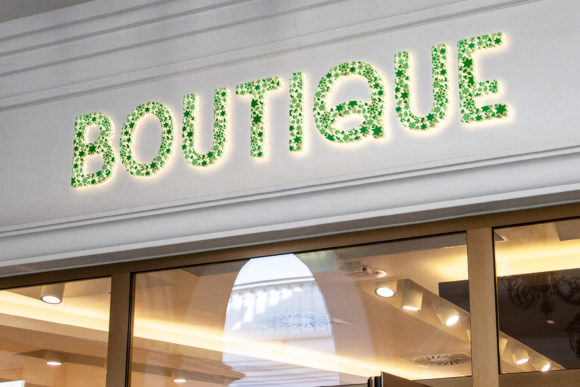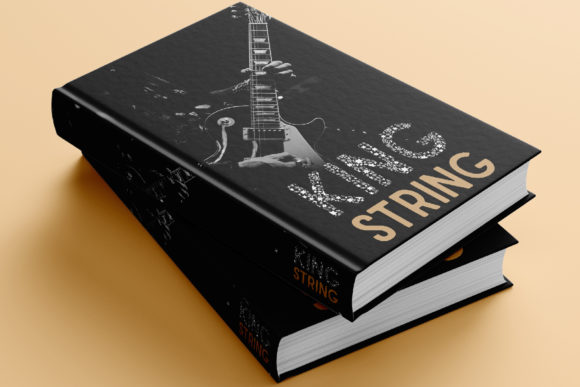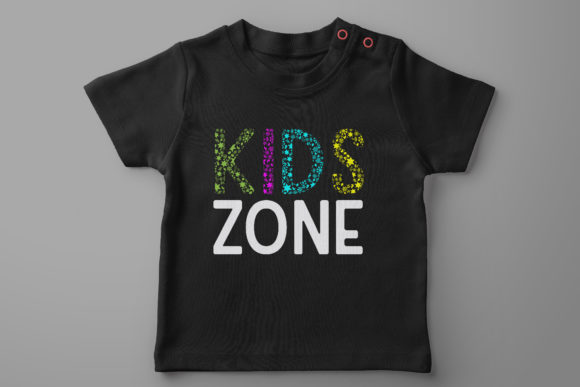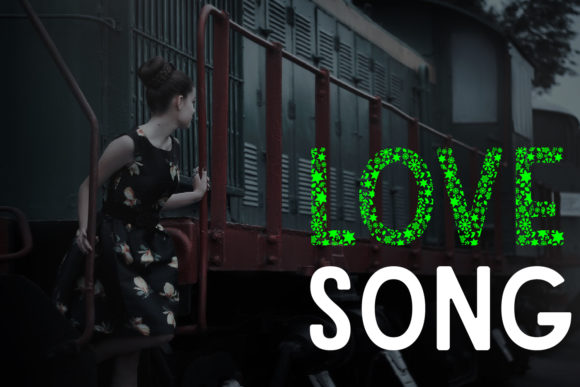
Cemara Font: Elevate Your Designs with a Playful and Cool Display Font
Cemara is a playful and cool display font that will transform any design idea into a true standout! If you’re a designer or crafter looking for a font that can add a touch of personality and whimsy to your projects, Cemara is an excellent choice. In this article, we’ll explore the features and benefits of Cemara font, and how it can elevate your designs to the next level.
What is Cemara Font?
Cemara is a modern display font designed to make a statement. Its playful and cool style is perfect for designs that require a touch of fun and personality. The font features bold lines, rounded edges, and a unique character set that sets it apart from other fonts. Whether you’re working on a logo, poster, or social media graphic, Cemara font is sure to grab attention and leave a lasting impression.
Key Features of Cemara Font
- Playful and Cool Style: Cemara font has a unique and playful style that’s perfect for designs that require a touch of personality.
- Bold Lines and Rounded Edges: The font features bold lines and rounded edges that give it a modern and fresh look.
- Unique Character Set: Cemara font has a unique character set that includes uppercase and lowercase letters, numbers, and special characters.
- Easy to Read: Despite its bold style, Cemara font is easy to read, making it perfect for headlines and titles.
Benefits of Using Cemara Font
So, why should you use Cemara font in your designs? Here are just a few benefits:
- Adds Personality to Your Designs: Cemara font adds a touch of personality and whimsy to your designs, making them stand out from the crowd.
- Perfect for Display Text: The font is designed for display text, making it perfect for headlines, titles, and logos.
- Versatile: Cemara font can be used in a variety of design projects, from posters and flyers to social media graphics and logos.
- Easy to Pair with Other Fonts: The font is easy to pair with other fonts, making it perfect for designs that require a combination of fonts.
Design Ideas Using Cemara Font
So, how can you use Cemara font in your designs? Here are a few ideas to get you started:
- Logos: Use Cemara font to create a unique and memorable logo for your brand.
- Posters and Flyers: Add a touch of personality to your posters and flyers with Cemara font.
- Social Media Graphics: Use Cemara font to create eye-catching social media graphics that grab attention.
- Headlines and Titles: Use Cemara font to add a touch of personality to your headlines and titles.
Tips for Using Cemara Font
Here are a few tips for using Cemara font in your designs:
- Use it Sparingly: Cemara font is a bold font, so use it sparingly to avoid overwhelming your design.
- Pair it with Other Fonts: Pair Cemara font with other fonts to create a unique and interesting combination.
Cemara font is a playful and cool display font that’s perfect for designers and crafters looking to add a touch of personality to their designs. With its bold lines, rounded edges, and unique character set, Cemara font is sure to grab attention and leave a lasting impression. Whether you’re working on a logo, poster, or social media graphic, Cemara font is an excellent choice. So why not give it a try and see how it can elevate your designs to the next level?